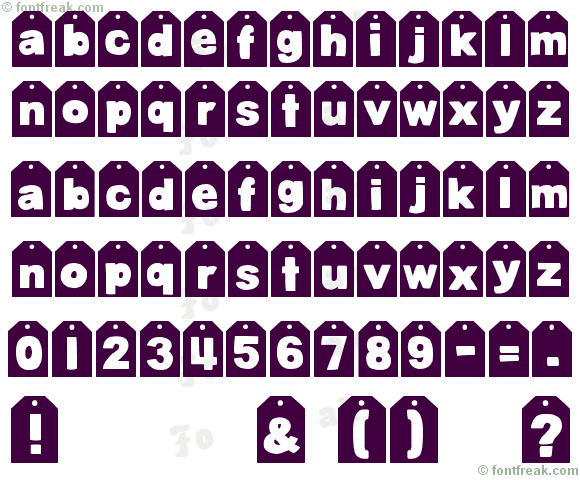
DJB TAGGED by Darcy Baldwin is a unique typeface that falls under the decorative category, making it an excellent choice for projects that require a playful and eye-catching aesthetic. The font features a bold stroke weight and a distinctive contrast between thick and thin elements, contributing to its engaging and dynamic appearance. The letters are designed with a slightly rounded edge, providing a friendly and approachable vibe. Additionally, the spacing between the characters is well-balanced, ensuring legibility even in larger formats. The most notable visual characteristic of DJB TAGGED is its creative integration of tag-like shapes, giving it an innovative twist that enhances its overall appeal.
This font is ideal for various use cases, including crafting vibrant wedding invitations, designing captivating movie posters, creating attention-grabbing restaurant menus, and even developing branding materials for small businesses. Its playful nature makes it particularly suitable for projects aimed at younger audiences or those in the creative industry, such as graphic designers and content creators seeking to infuse personality into their designs. Small business owners can also leverage this font to create memorable promotional materials that stand out in a crowded marketplace.
What sets DJB TAGGED apart is its distinctive character and versatility. With the DJB TAGGED font free download available, designers and creatives can easily incorporate this whimsical typeface into their projects without any cost, making it accessible for all. Its unique visual style and engaging elements provide an excellent opportunity to elevate any design, ensuring that it captures attention and leaves a lasting impression. Whether you're looking to add flair to personal projects or professional materials, DJB TAGGED is a fantastic choice that delivers both style and functionality.